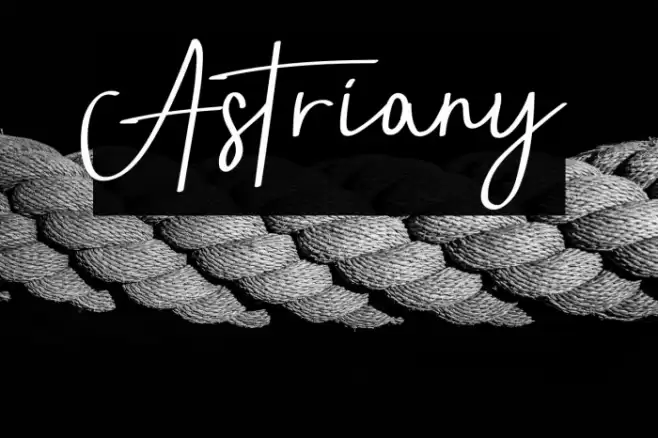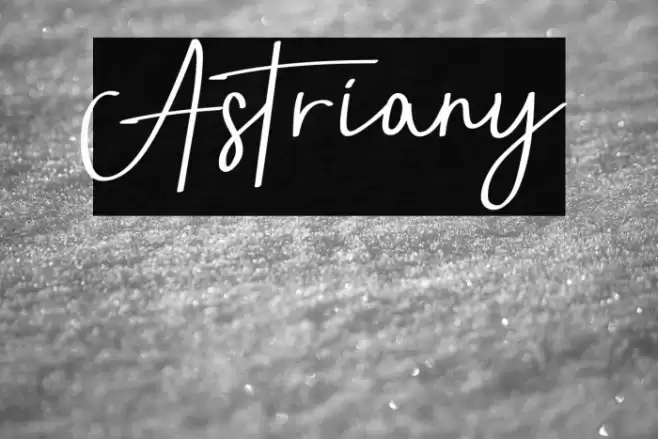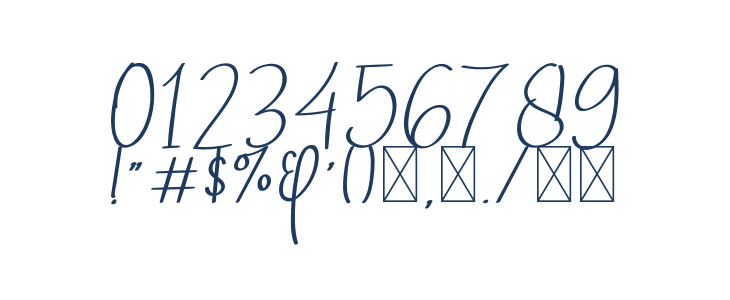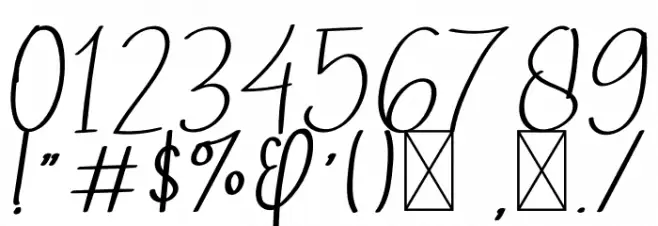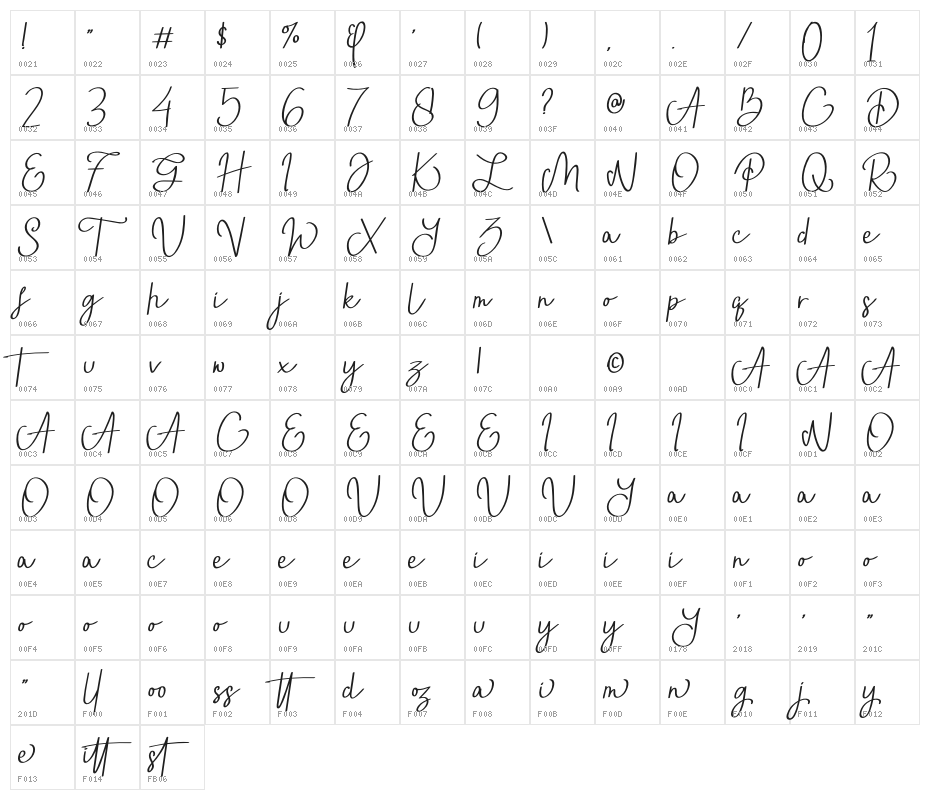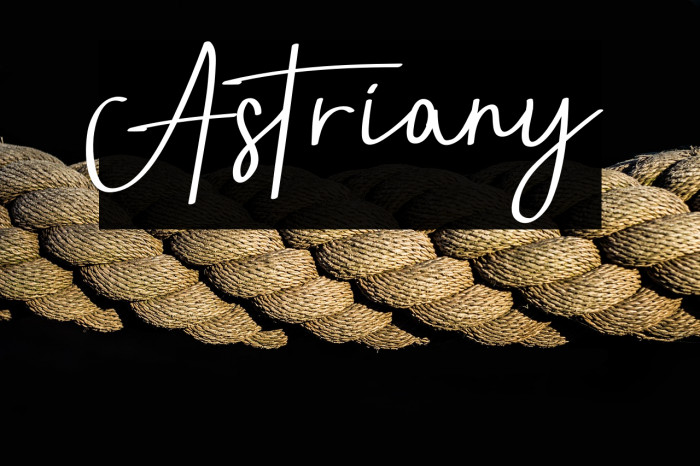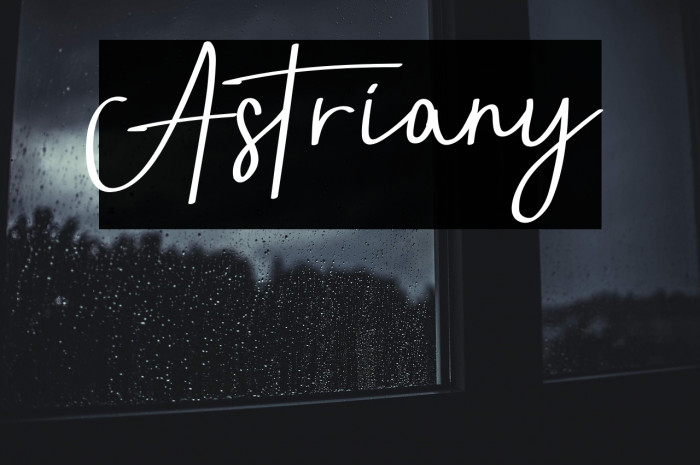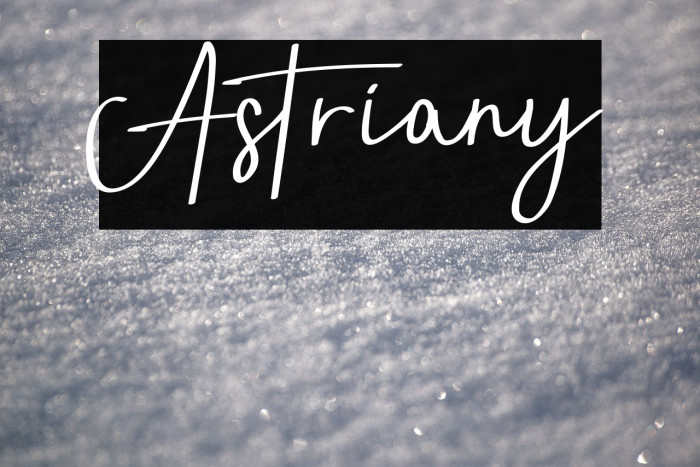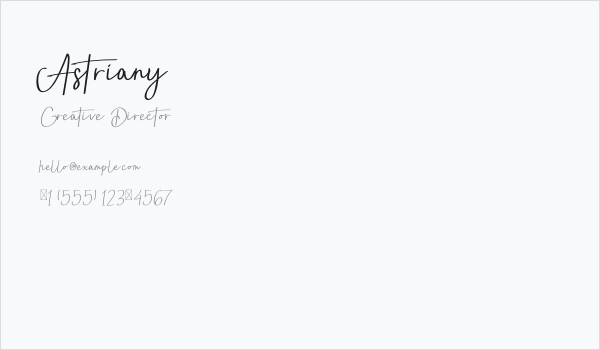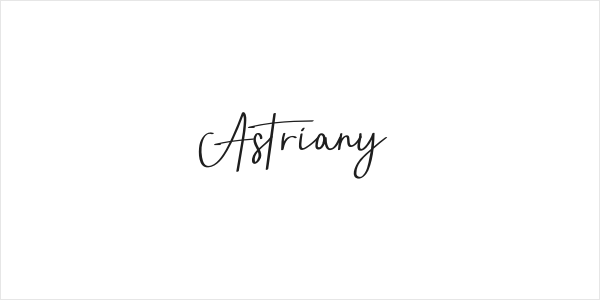
Astriany Font
Astriany Description
This font features a playful and elegant script style, characterized by its fluid, cursive strokes and a sense of motion. The uppercase letters exhibit a graceful looped design, while the lowercase letters maintain a consistent flow, enhancing readability. The numbers and special characters are designed with a similar flair, ensuring a cohesive look across all text. The overall appearance is both sophisticated and approachable, making it suitable for a variety of creative applications.
A playful and elegant script font with fluid, cursive strokes from Regular fonts.
- Proposed Projects: Ideal for wedding invitations, greeting cards, branding projects, and social media graphics.
- Use Case: Logos, Invitations, Social Media